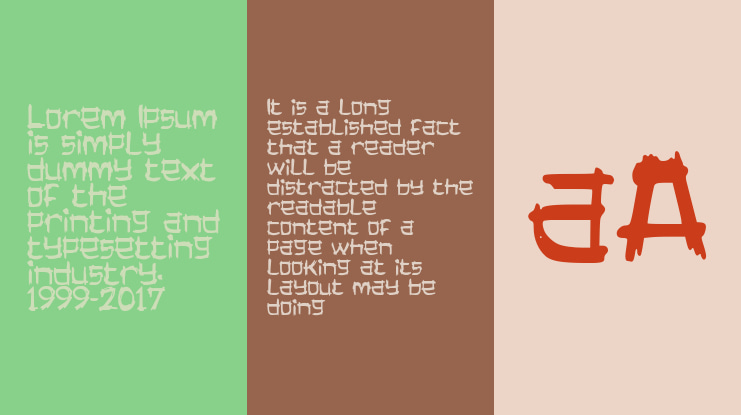
LagosTraffic Font
Hello buddy :) The font 'Lagos Traffic' was inspired by a personal experience I had someday navigating the city...shiii #smh...anyways;Thanks on having interest on this piece. It is free for personal and non-profit use. If you would like to use this font commercially please order a commercial license here https://www.creativefabrica.com/product/lagos-traffic/ or contact me. ()